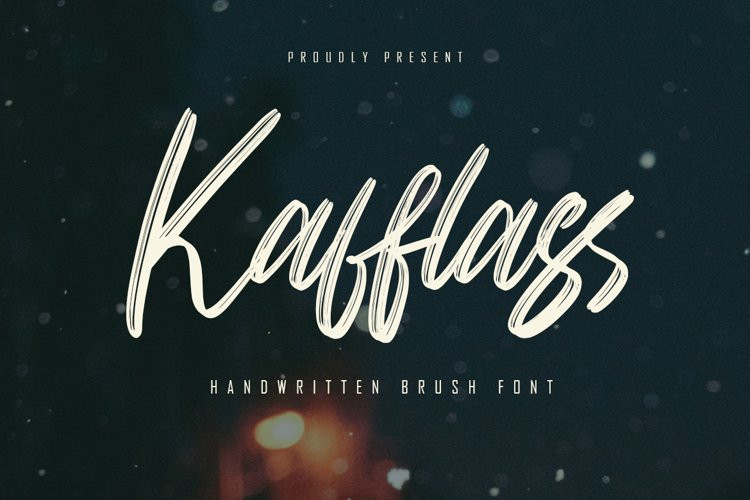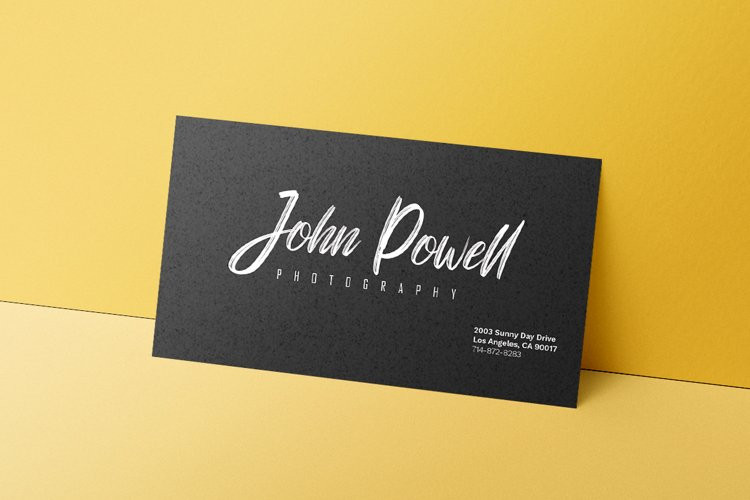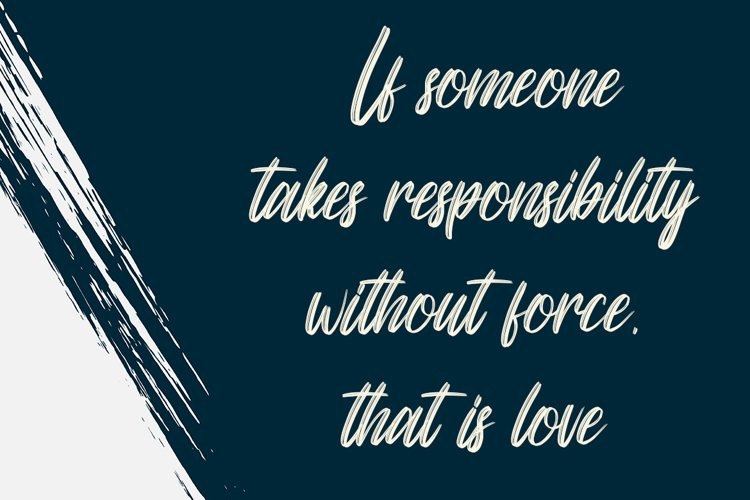
Kafflass Font
Kafflass is a natural handmade textured brush text font with an irregular base line. Suitable for use in title design. Such as , films, quotes, branding, logos, and others.